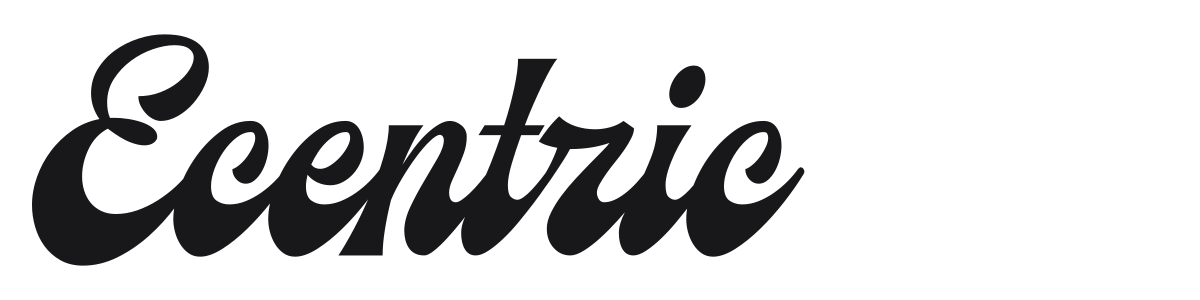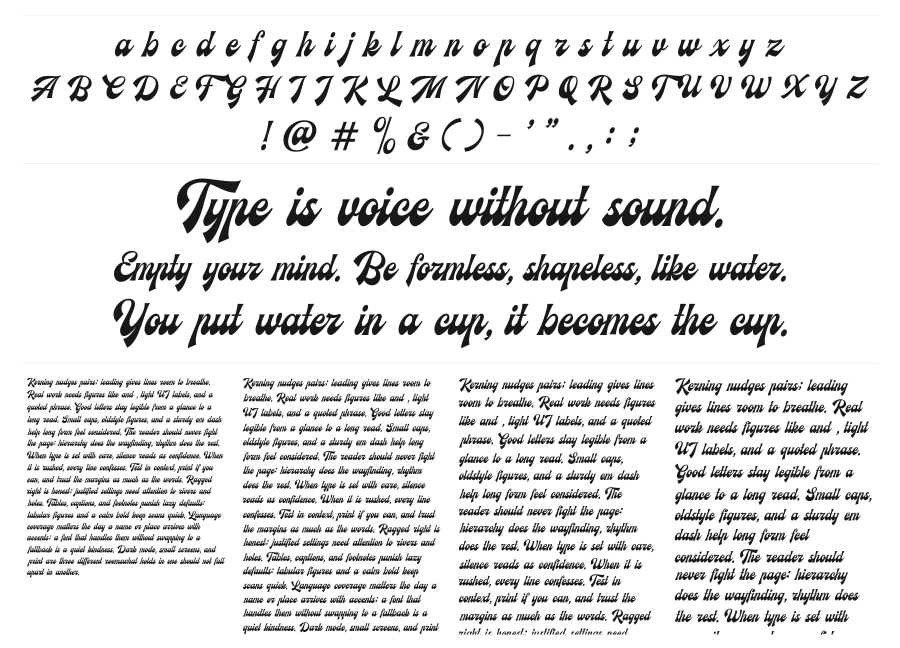
Ecentric
Ecentric is a bold retro brush script with sweeping connected strokes and strong thick-thin contrast. It draws from mid-century American lettering traditions, with that confident, ink-heavy quality found on vintage signage and album covers. The generous italic lean and looping joins give it real momentum at display sizes.